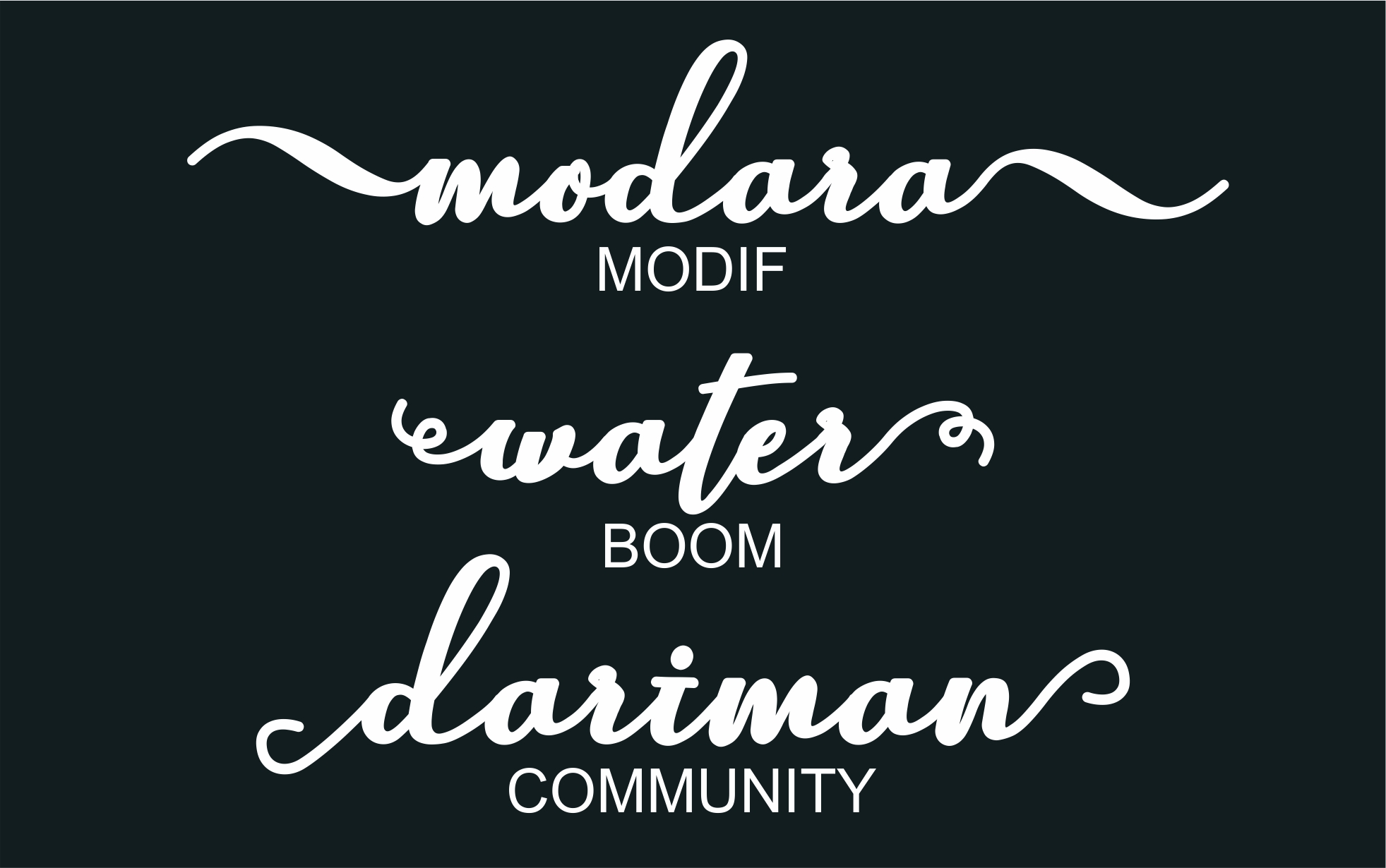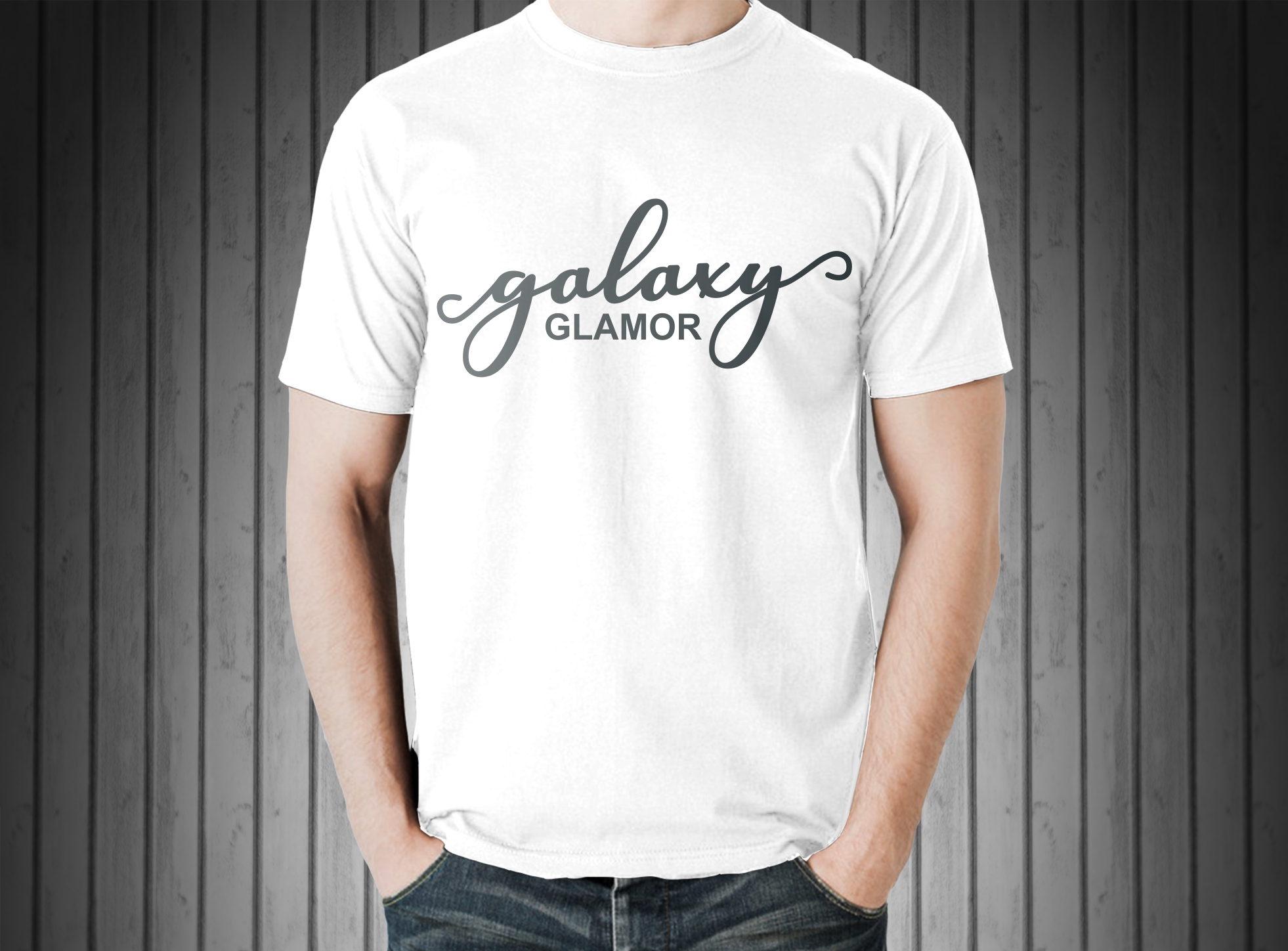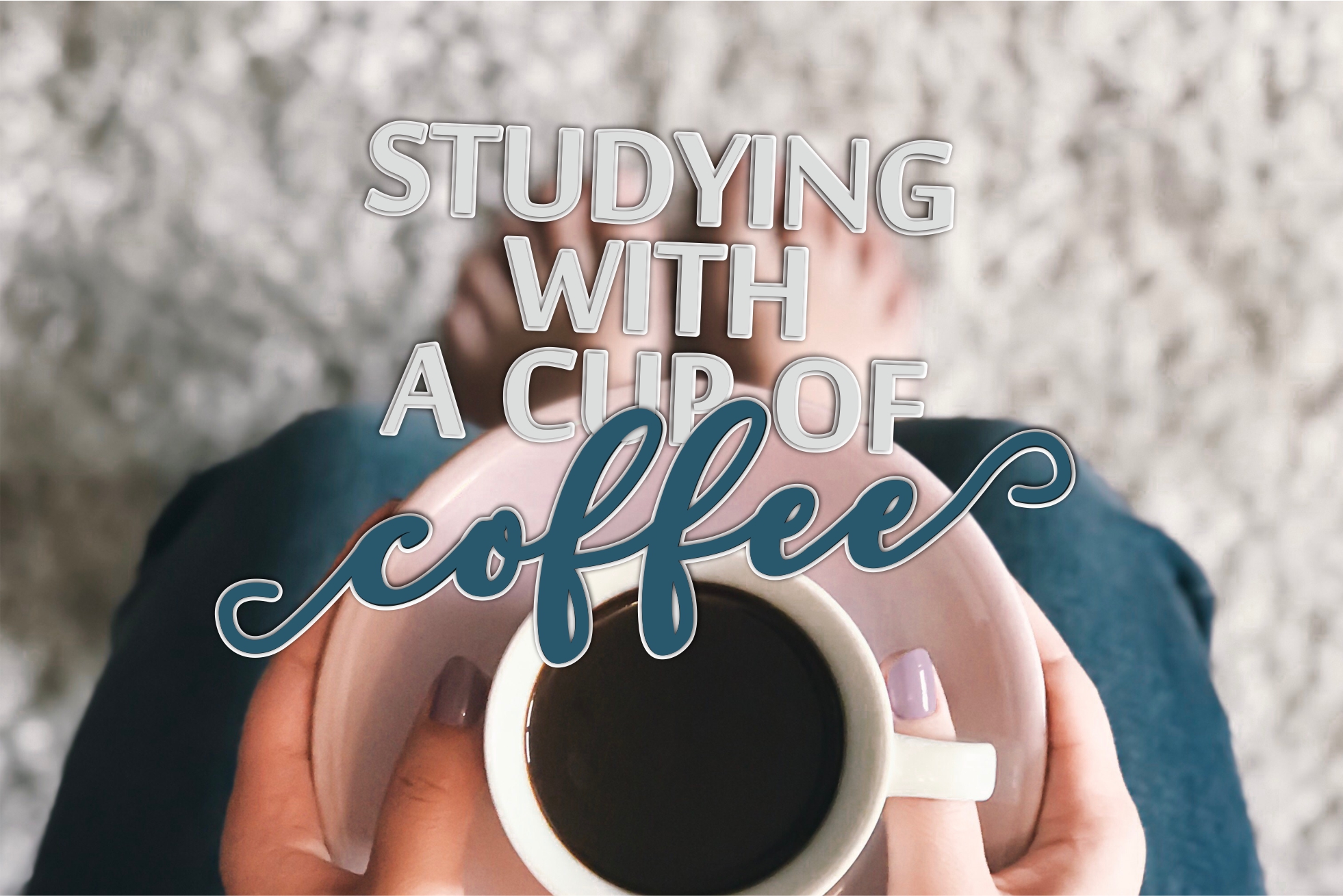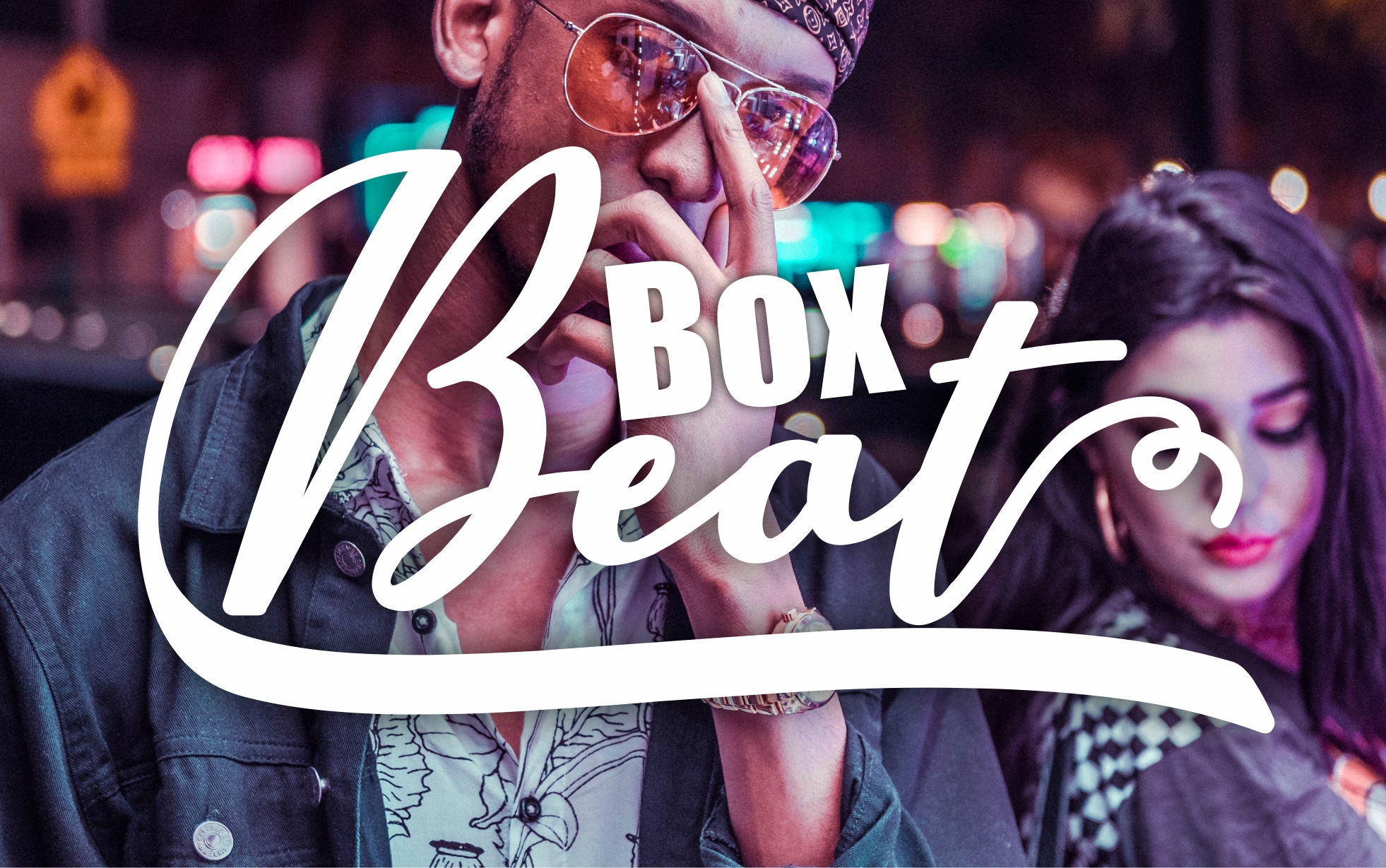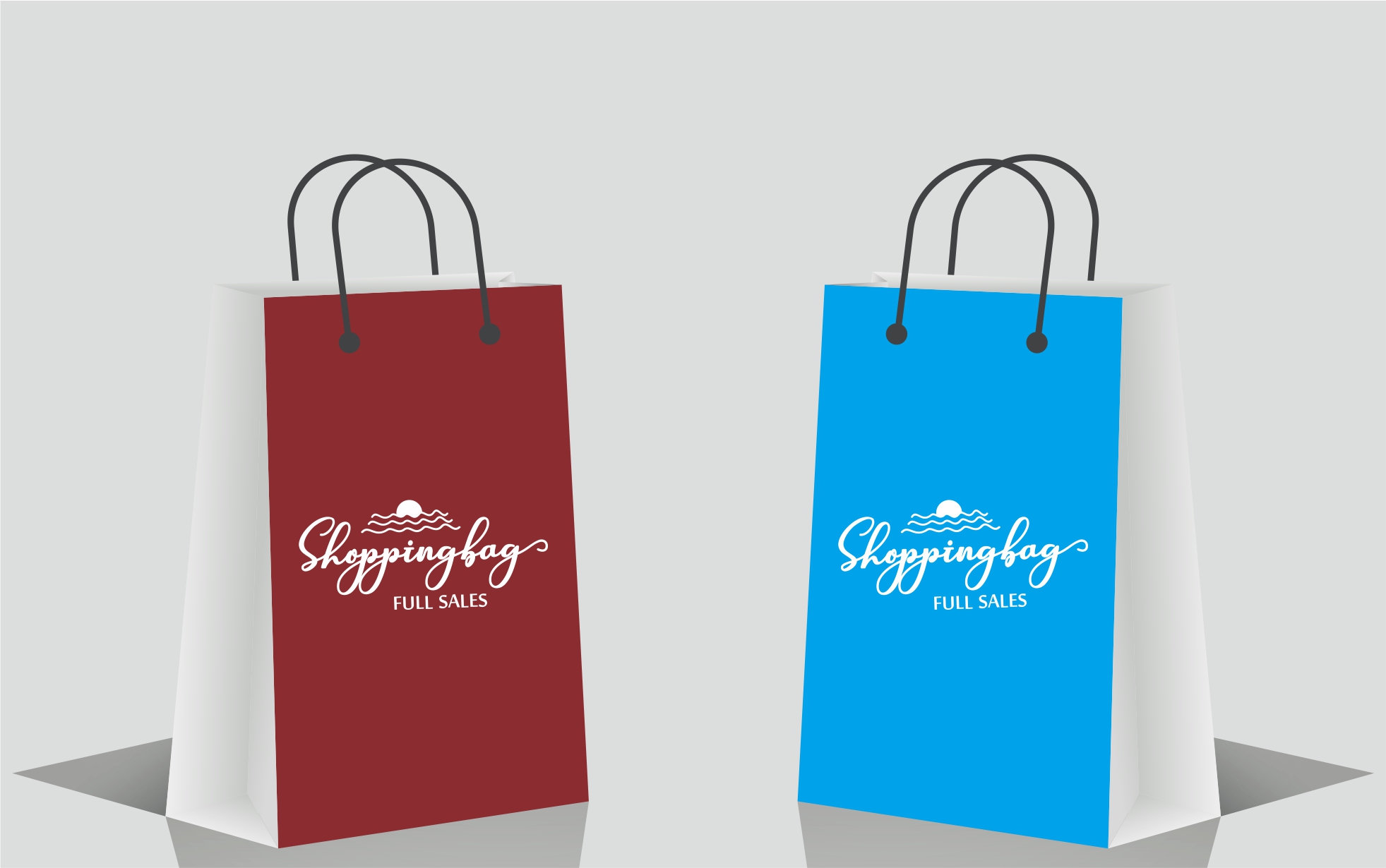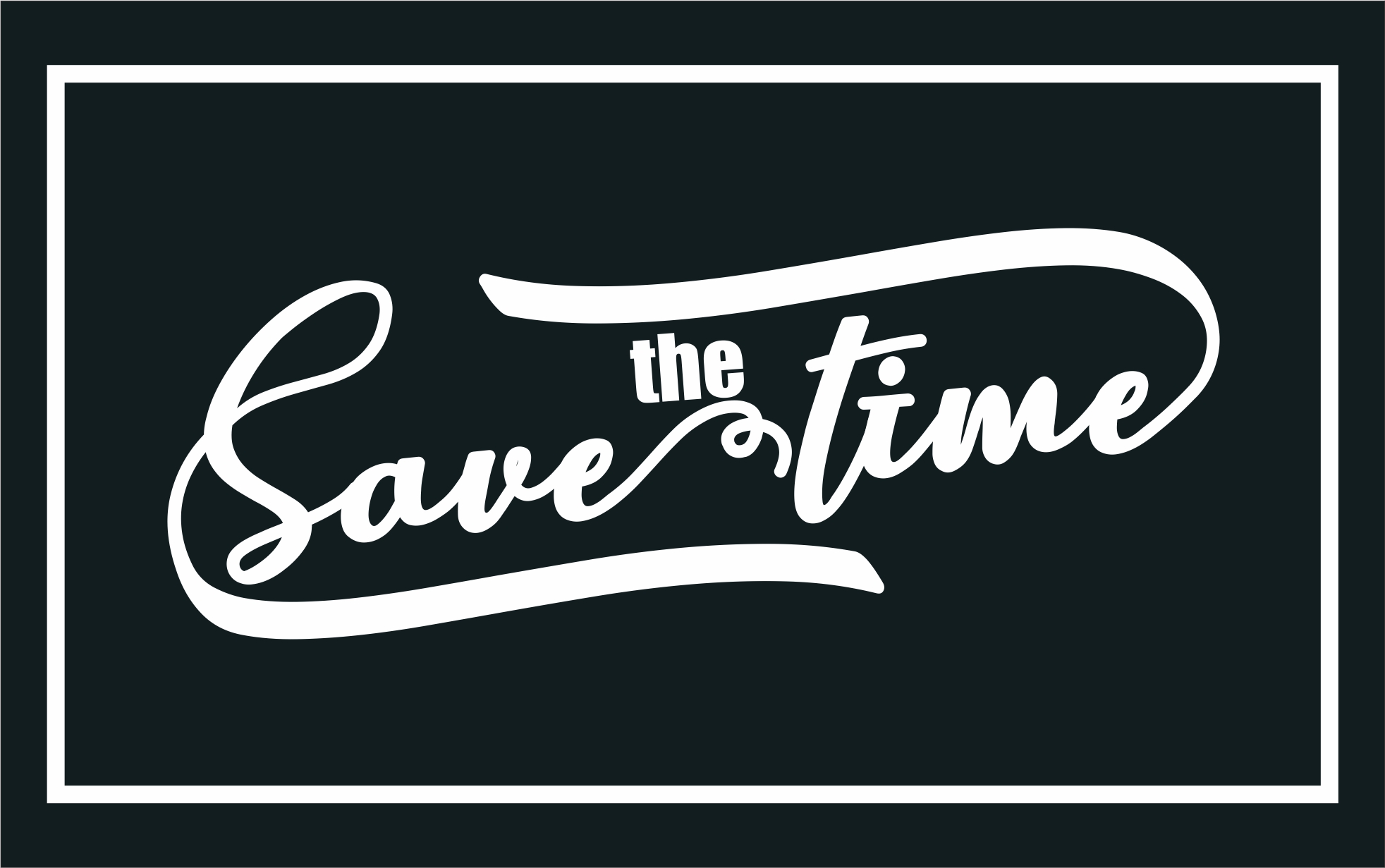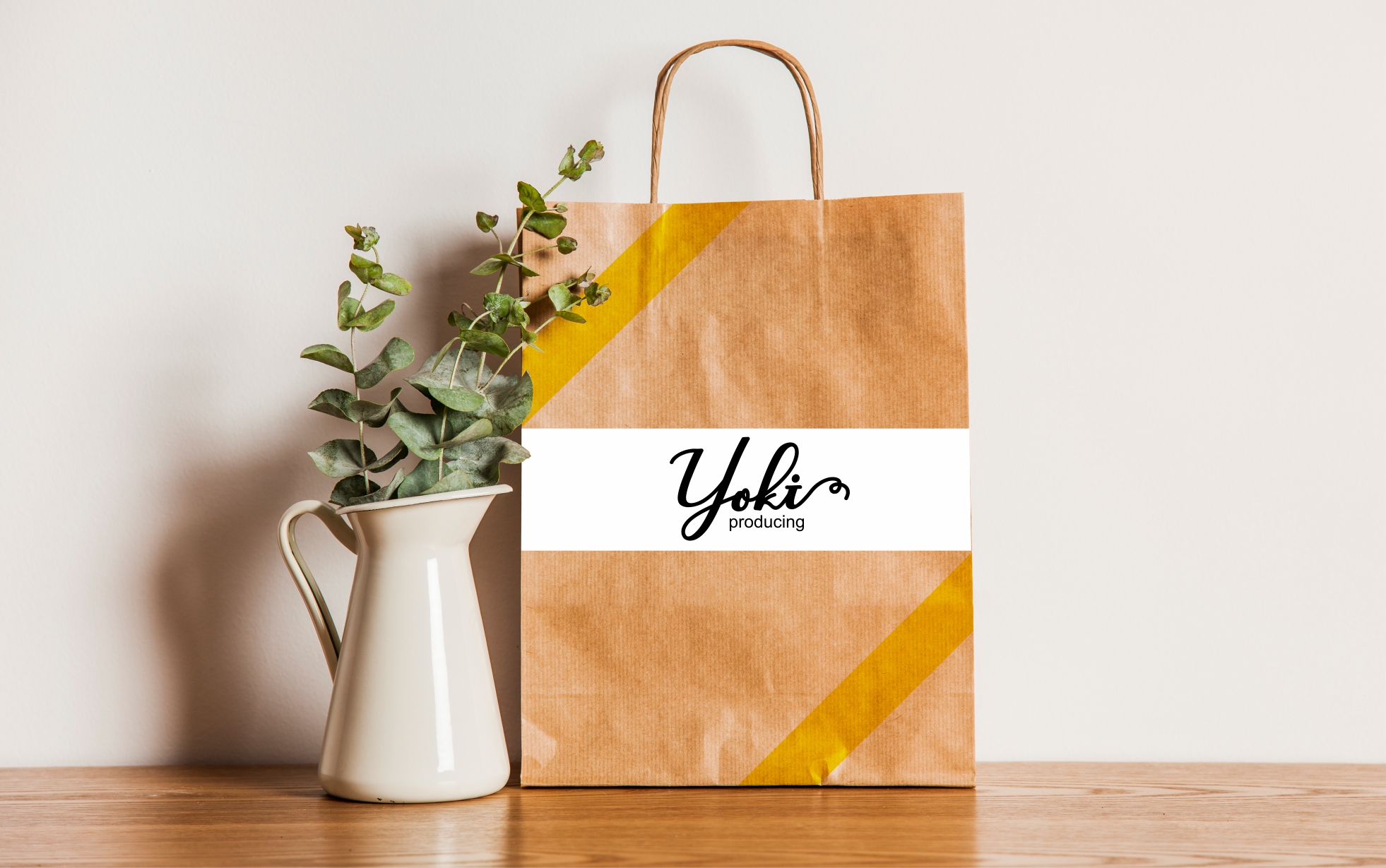
Pettaya Script Font
About Pettaya Script Font
Pettaya Script is a beautiful calligraphy font, with a wonderful weight to it that makes it suitable for headlines and logotype designs. This script is stunning standalone or in combination with a font in any other style.